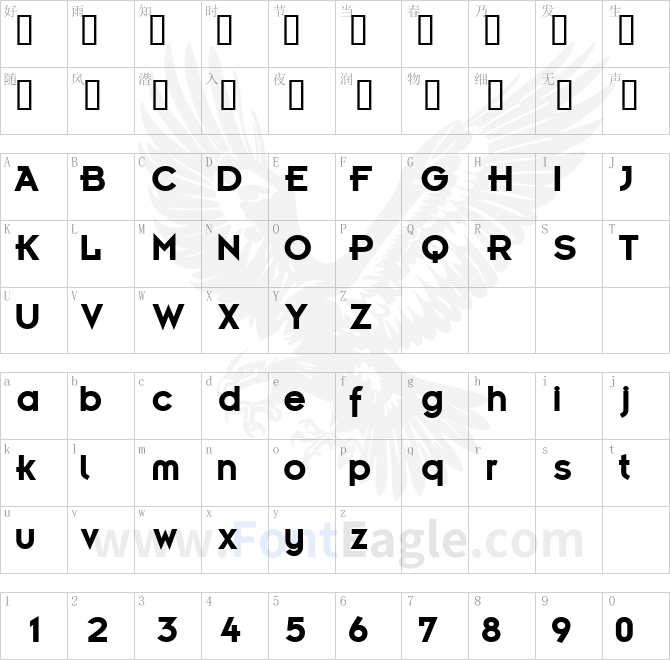
- Font name:KernelSSi
- Font Subfamily ID:Macromedia Fontographer 4.1 KernelSSi Bold
- Font Full Name:KernelSSi Bold
- Font Version:Macromedia Fontographer 4.1 8/3/95
- Postscript:KernelSSiBold